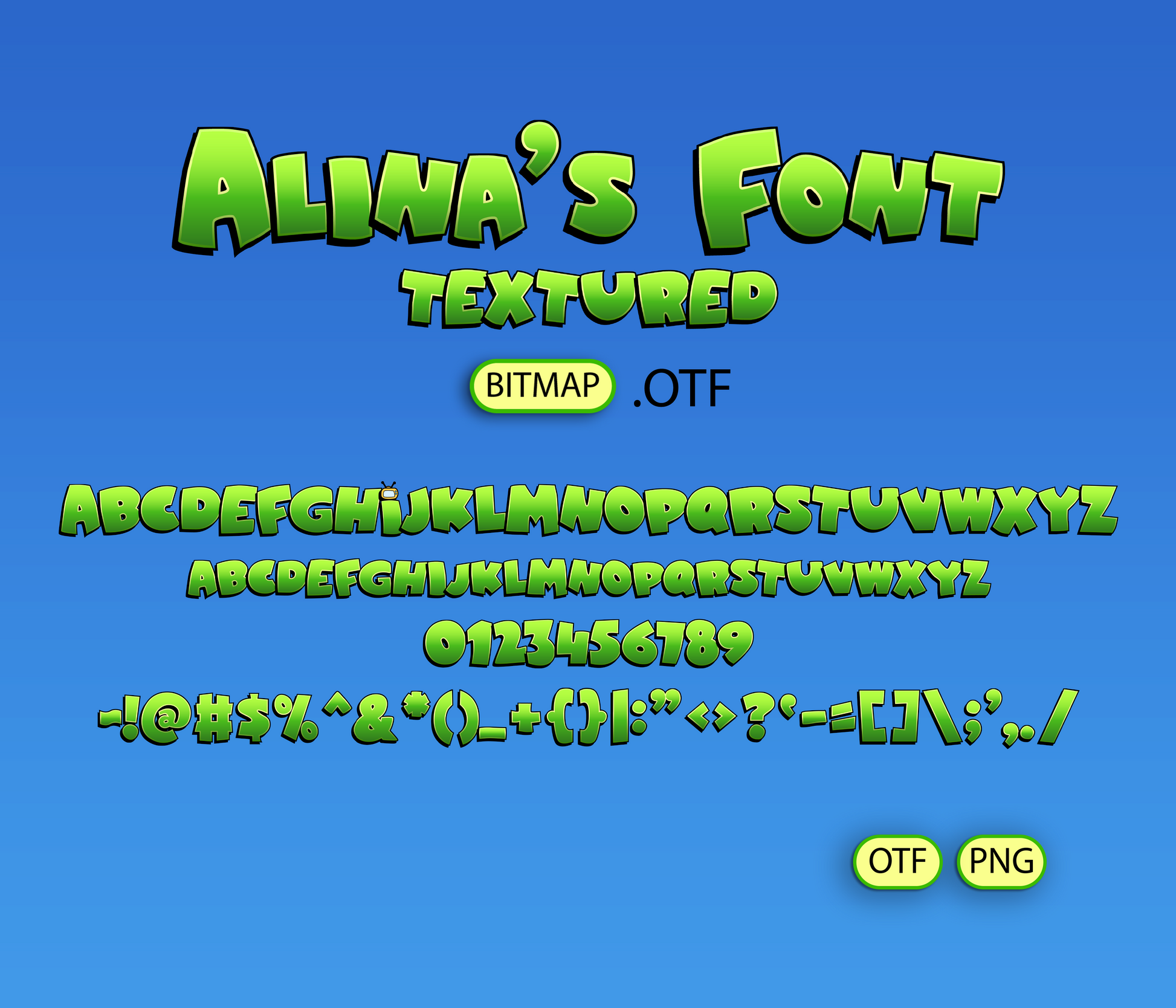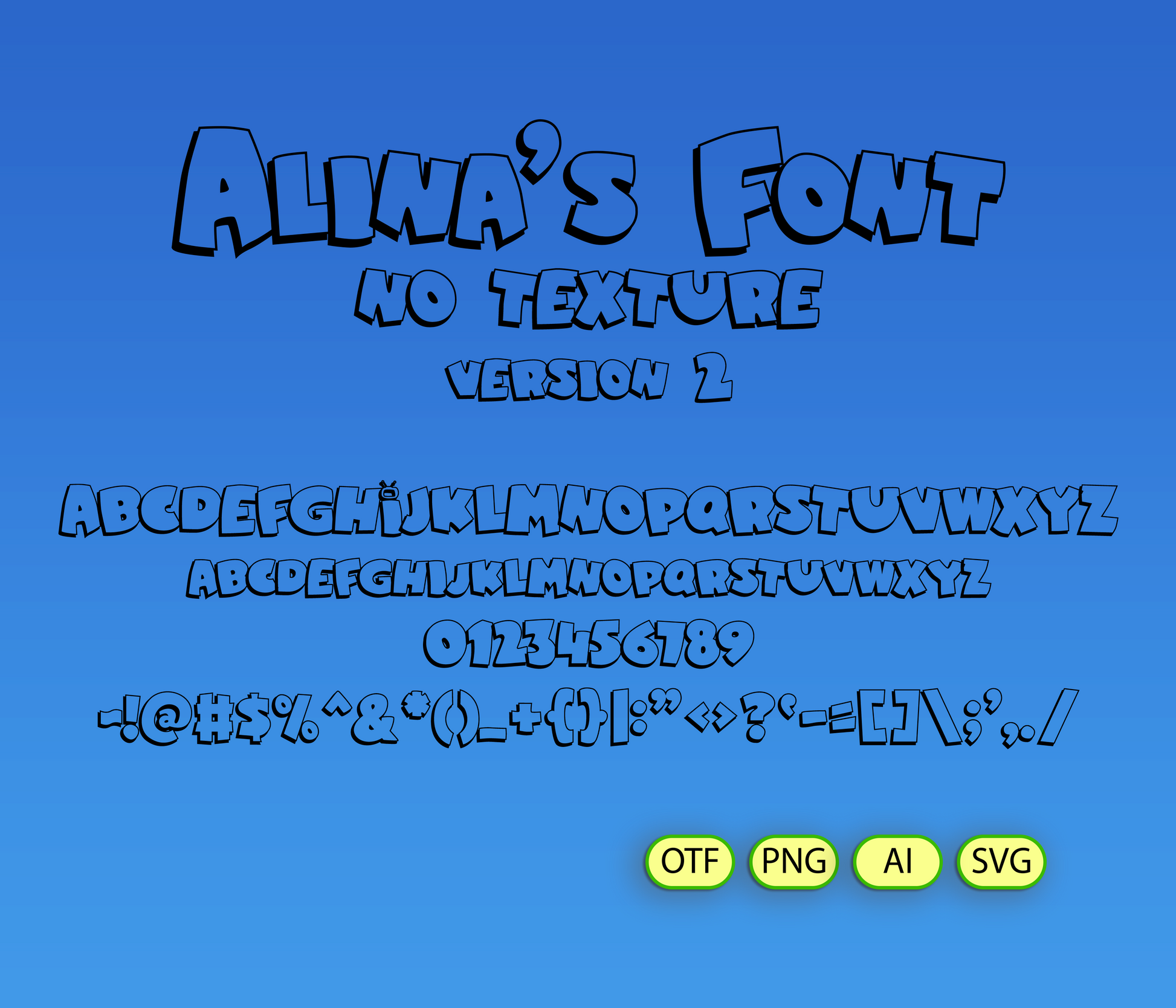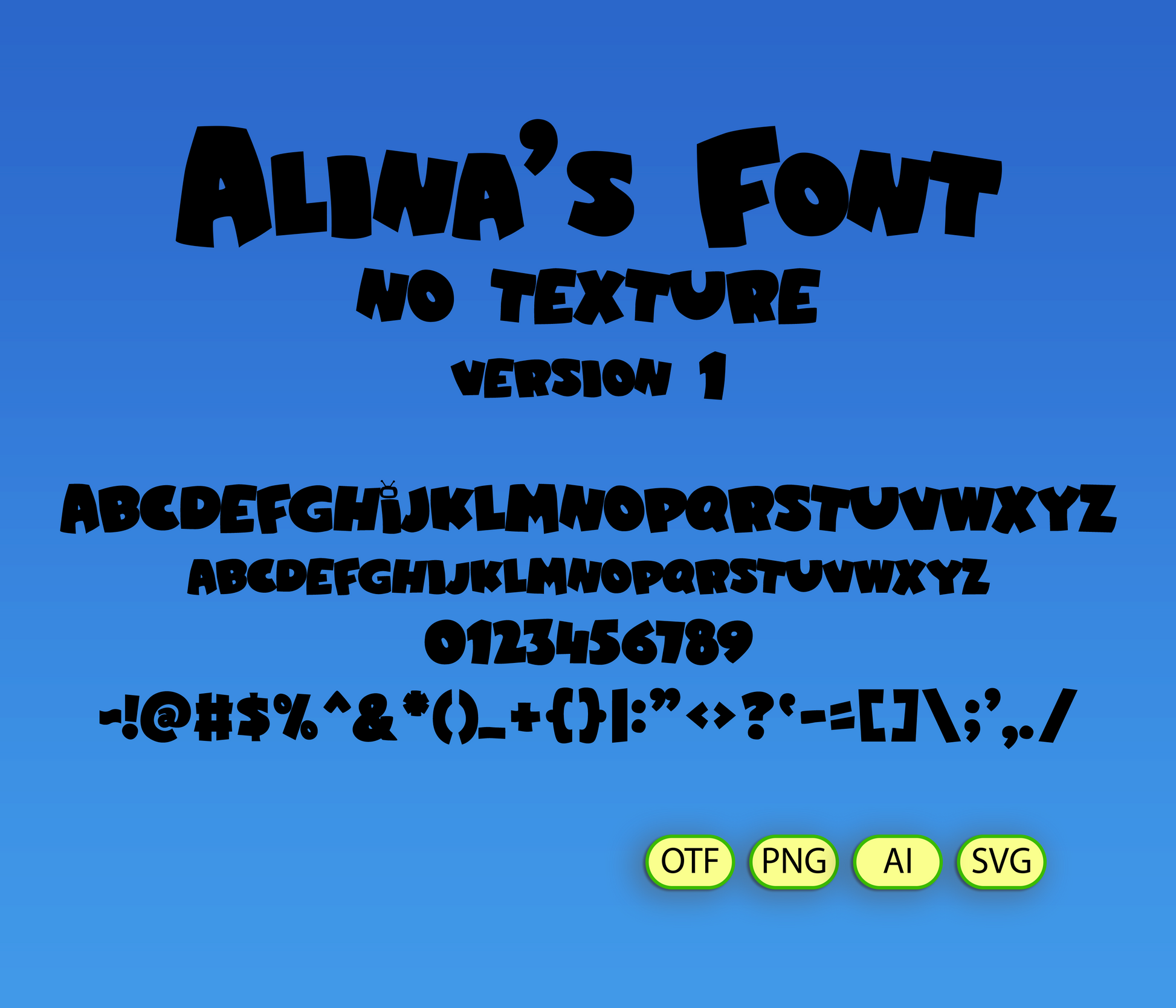
Quirky Family Sitcom Font Textured
Step into the world of animated satire with our bold, irreverent typeface that captures the essence of America's most outrageous cartoon family! Perfect for creating designs that pack a comedic punch.
Our font features bold, cartoonish characters that reflect the show's distinctive style. Perfect for:
- Two variants: textured for impact, clean for versatility
- Complete character set including special symbols
Whether you're designing fan merchandise, creating party materials, or adding humor to your projects, this font brings the perfect blend of comedy and cartoon style to your work.